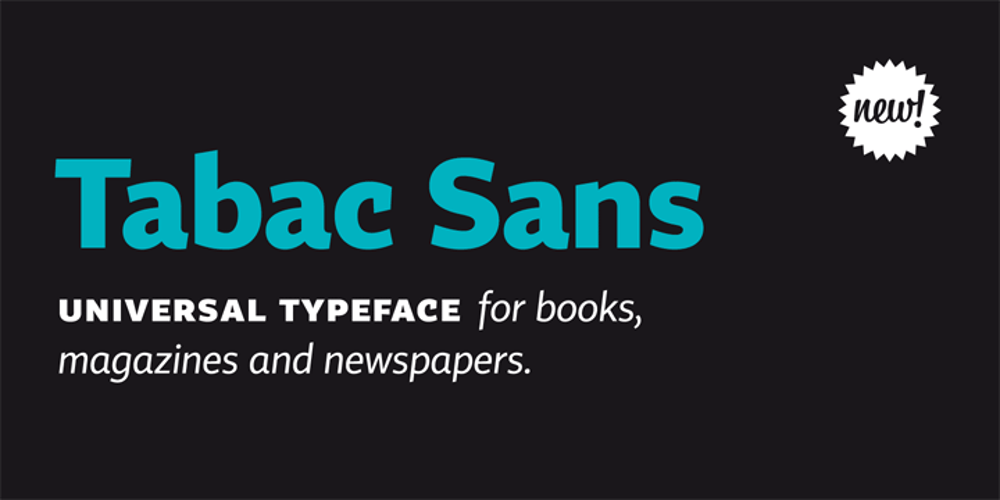
Tabac Sans Font Family was designed by Tomáš Brousil and published by Suitcase Type Foundry. Tabac Sans contains 16 styles and family package options. Tabac Sans is a linear, dynamic sans serif type that blurs the lines between text and title typefaces. Drawing on the rich tradition of European lettering, the humanist basis supports excellent readability even at the smallest letter sizes, while unique details and a wide array of alternative glyphs prove highly effectual in titles and headlines. The broad variety of types and weights make this font family a versatile aid when composing complex magazine and newspaper layouts.